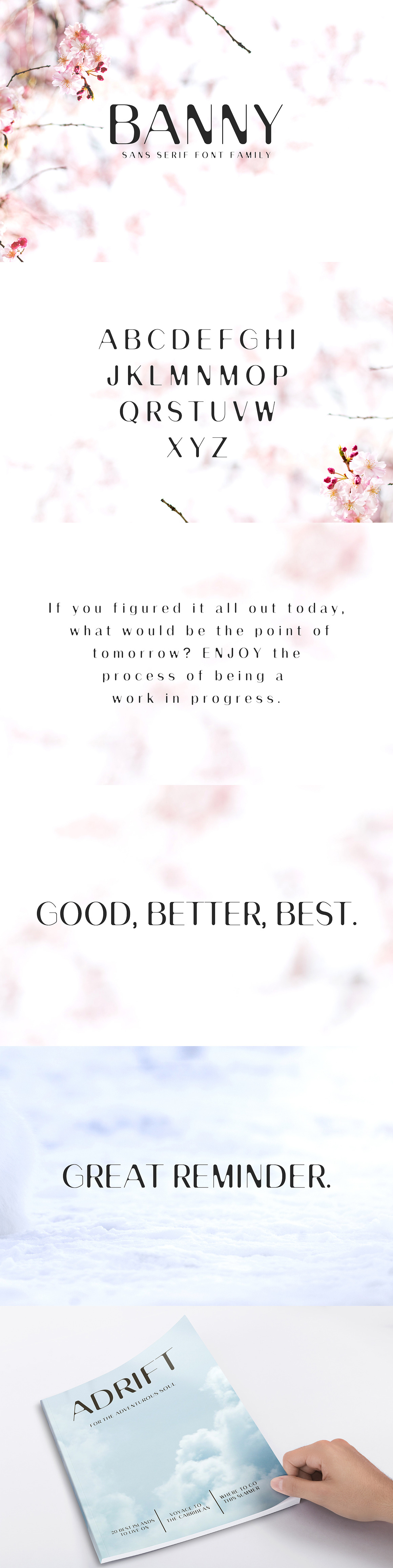
Banny Sans Serif Font Family
Banny Sans Serif Font Family is perfect for modern corporate branding, clean website interfaces, professional mobile applications, contemporary marketing materials, business presentations, tech startup communications, digital advertising campaigns, and streamlined user experiences.
Banny Sans Serif Font Family is exciting because it delivers exceptional geometric precision with friendly humanist warmth, featuring optimized letterforms and balanced proportions that create approachable professionalism while maintaining outstanding readability. Its welcoming character projects reliability and accessibility across all modern communication platforms.
Banny Sans Serif Font Family family includes light, regular, medium, and bold weights with matching italic variations, offering designers eight carefully crafted font styles for comprehensive typographic solutions and flexible brand applications.
Digital designers consistently select Banny Sans Serif Font Family for its exceptional performance in screen-based applications and user interface design. The font's optimized rendering capabilities and friendly character deliver crystal-clear display quality while maintaining inviting personality that supports positive user experiences. Its versatile weight range accommodates diverse communication needs from detailed information displays to confident headline applications.
Contemporary organizations appreciate Banny Sans Serif Font Family's ability to communicate professionalism while maintaining user-friendly appeal and approachable accessibility. Its balanced personality works equally well in corporate environments and consumer-facing applications, making it an indispensable typography resource for businesses seeking to establish trustworthy, welcoming brand presence through superior typographic communication and reliable user experience.